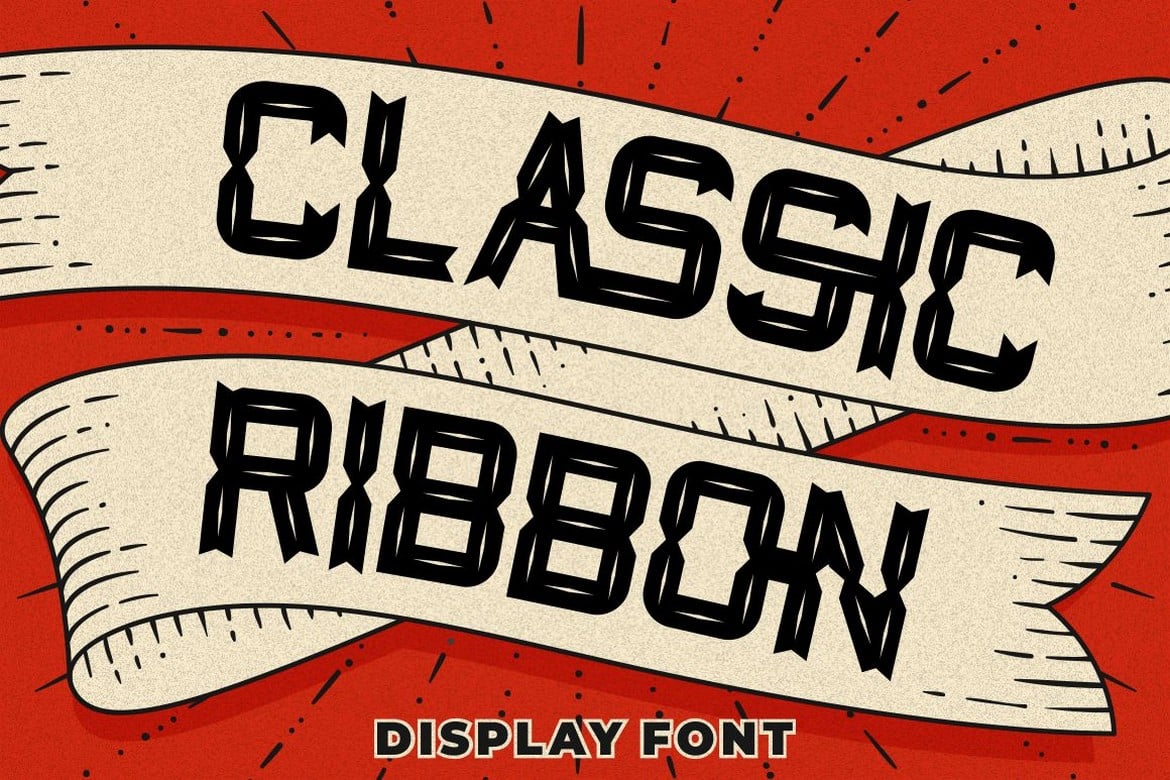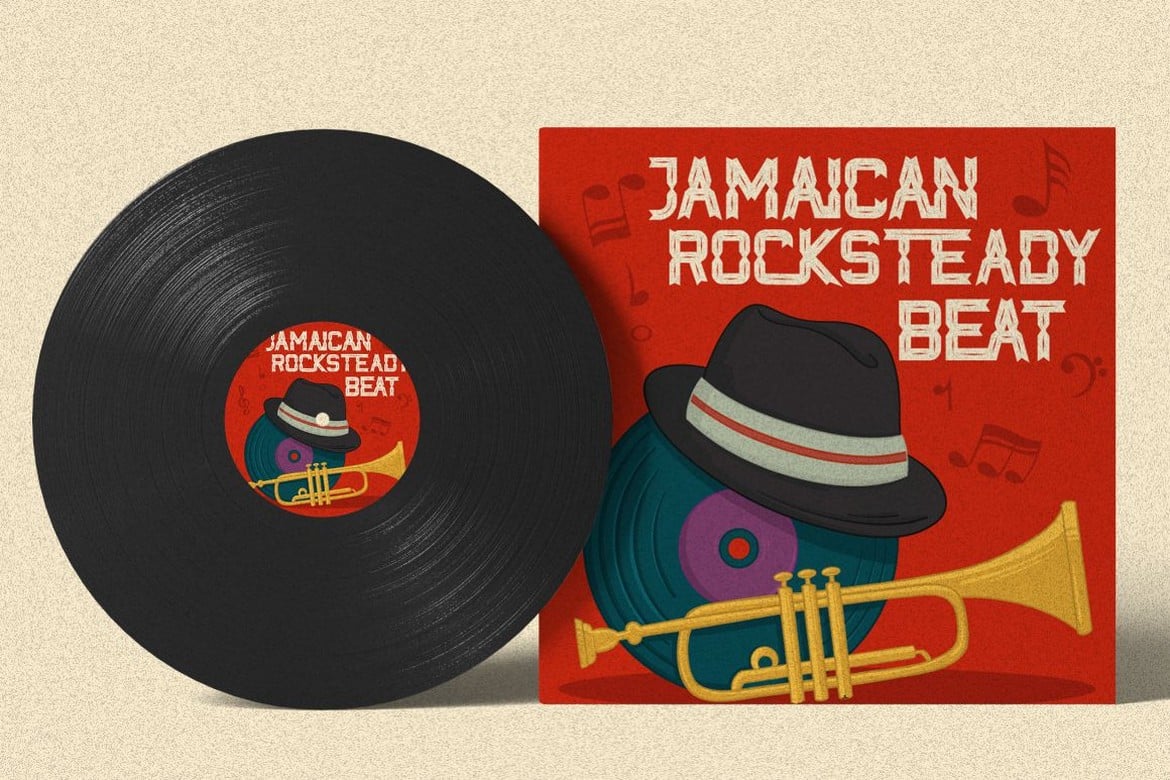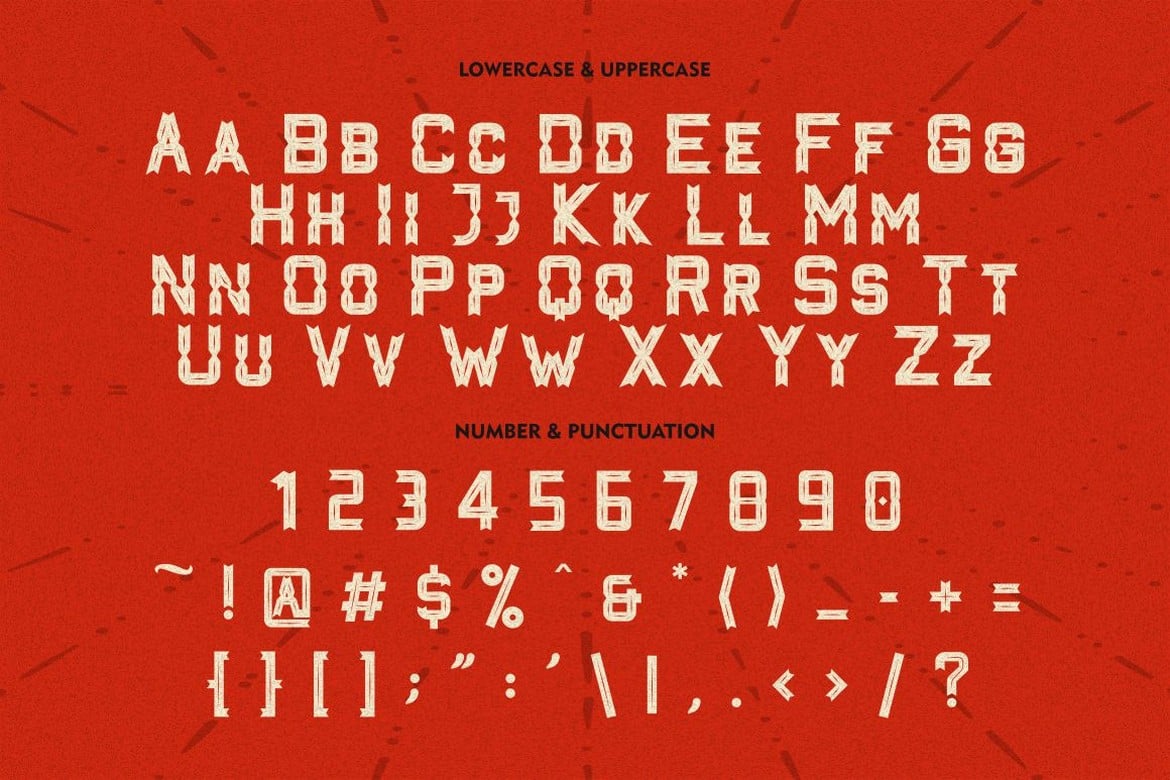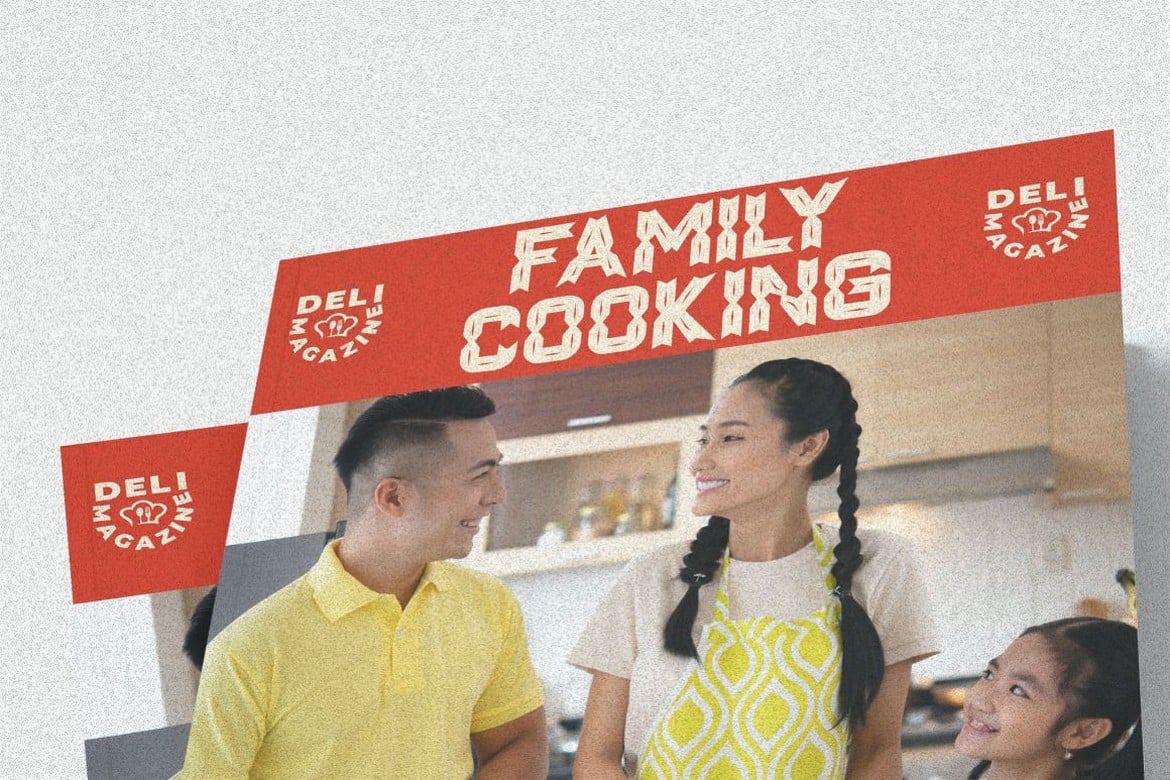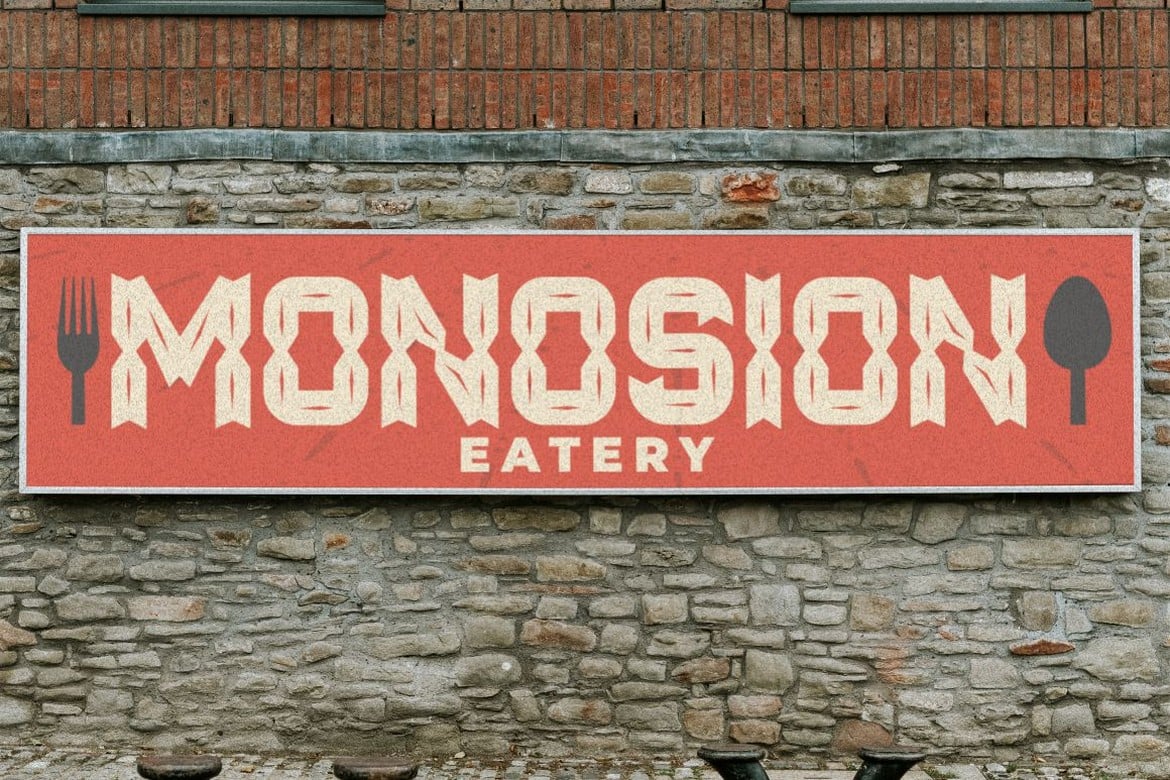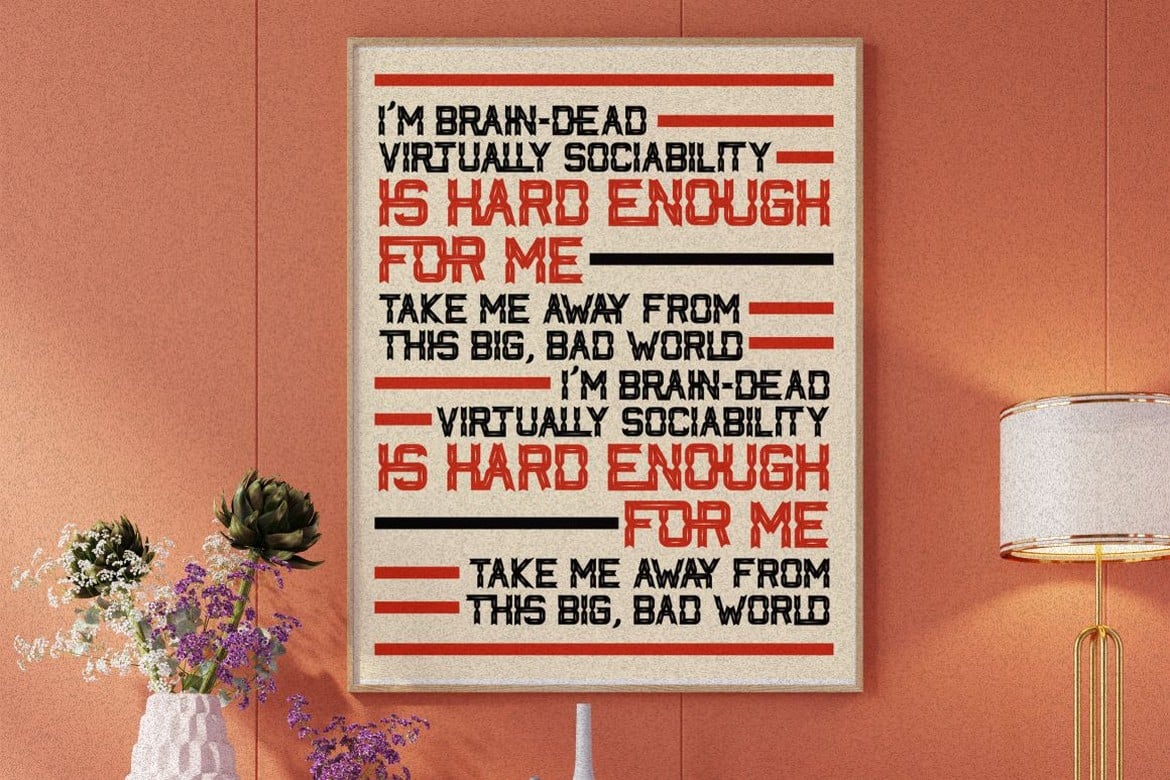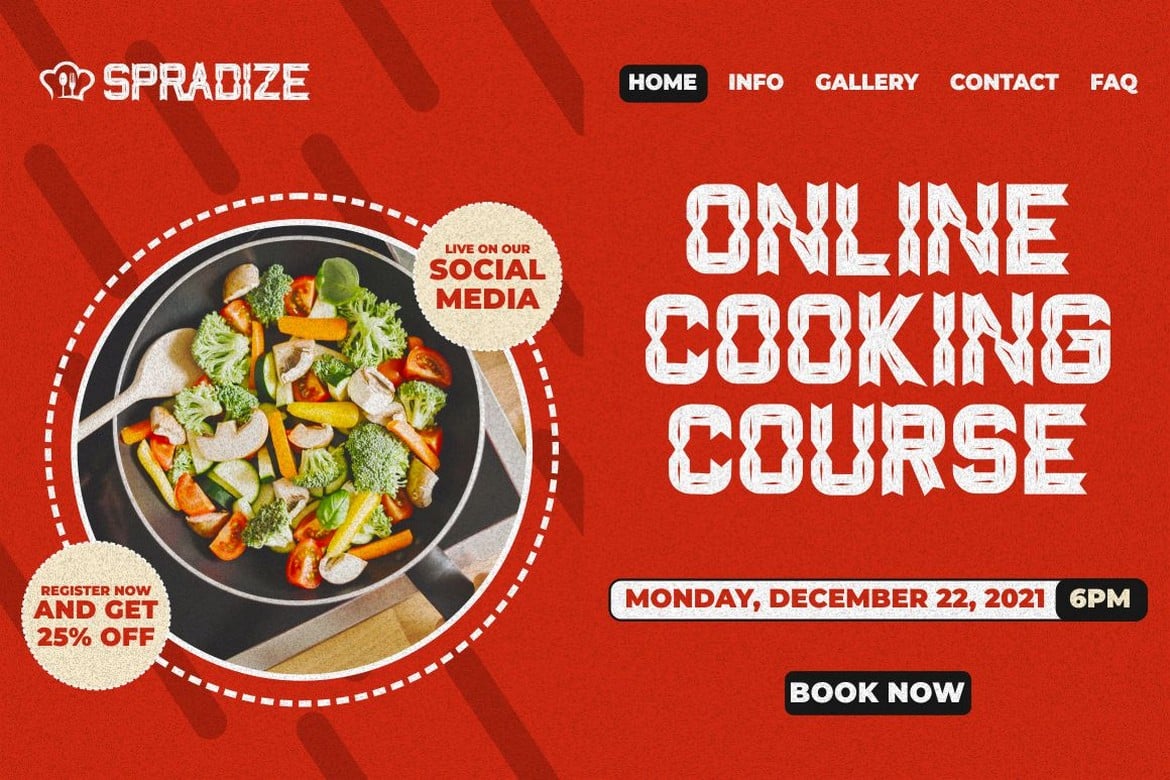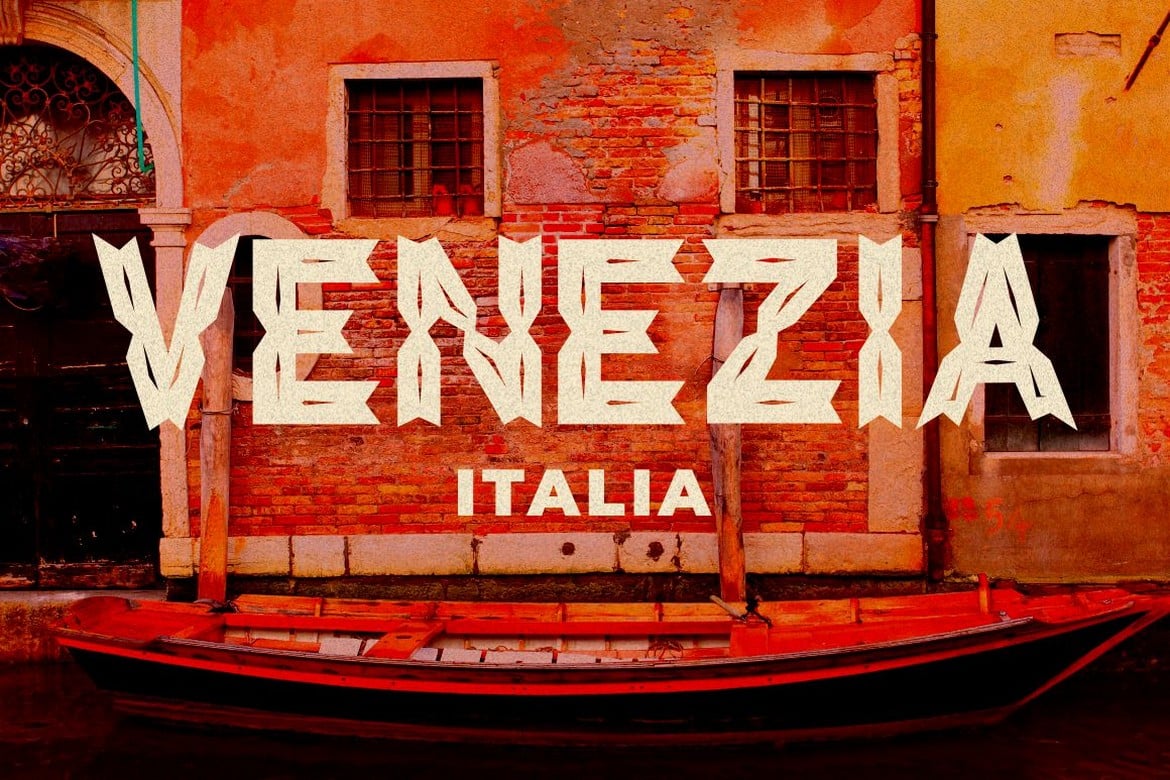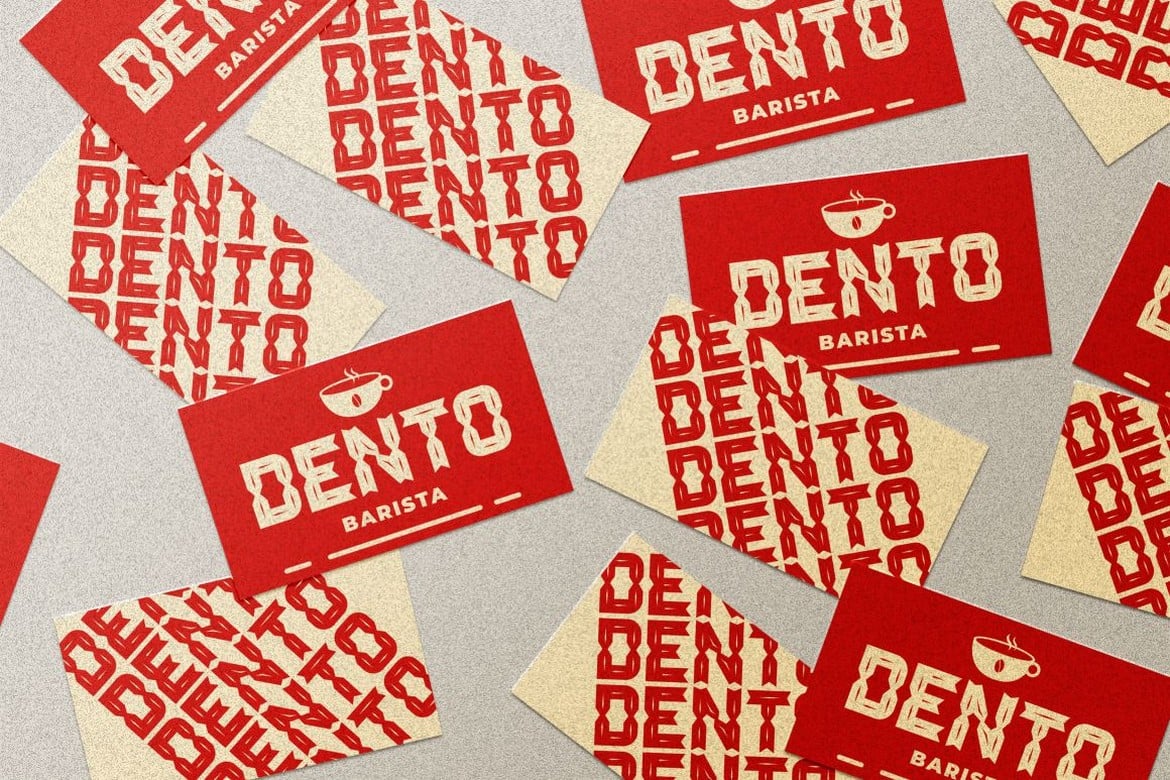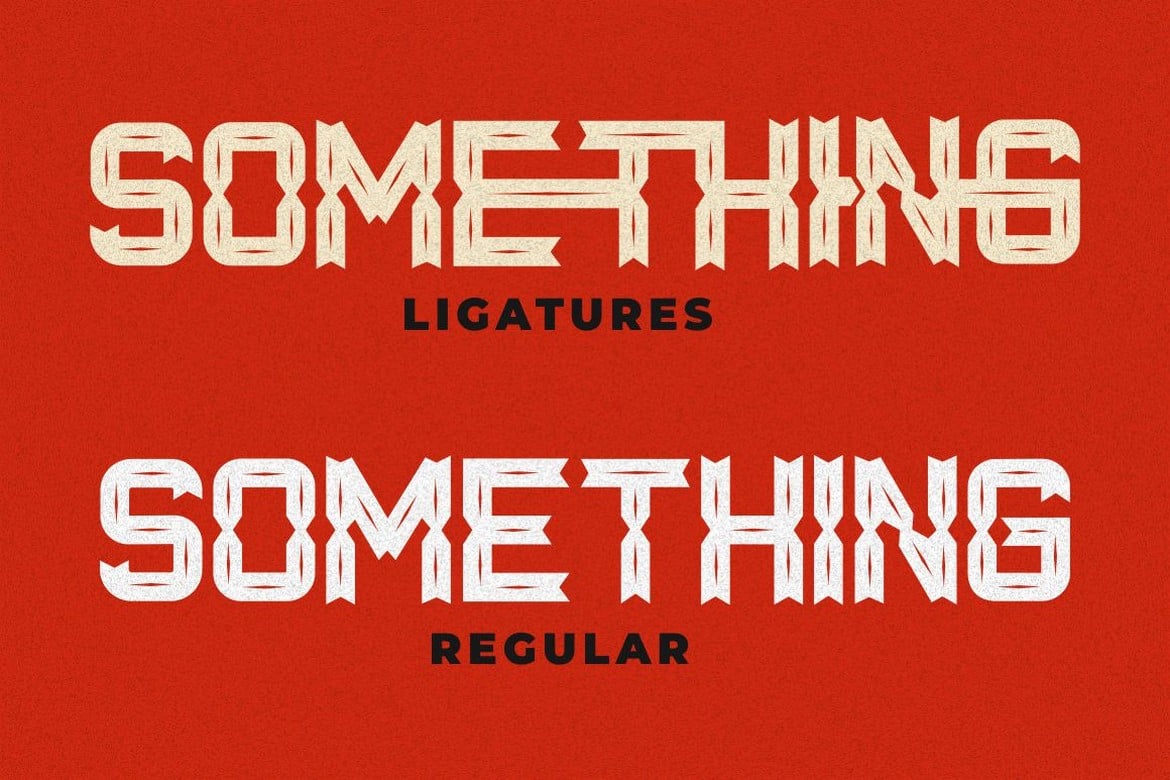
Classic Ribbon – Display Font
Introducing a new Display Typeface called “Classic Ribbon”. Inspired from music poster, carnival, typography and tatto from classic culture with inline style. This Inline style font works great as a headline for music promotion, film titles, Youtube tutorials and gig posters, and when combined with the included graphic presets and achieves a truly realistic classic look.
This font is suitable for your projects such as logos, wedding invitations, branding, landing pages, posters, headlines, greeting cards, invitation cards, social media, crafting, quote and more.